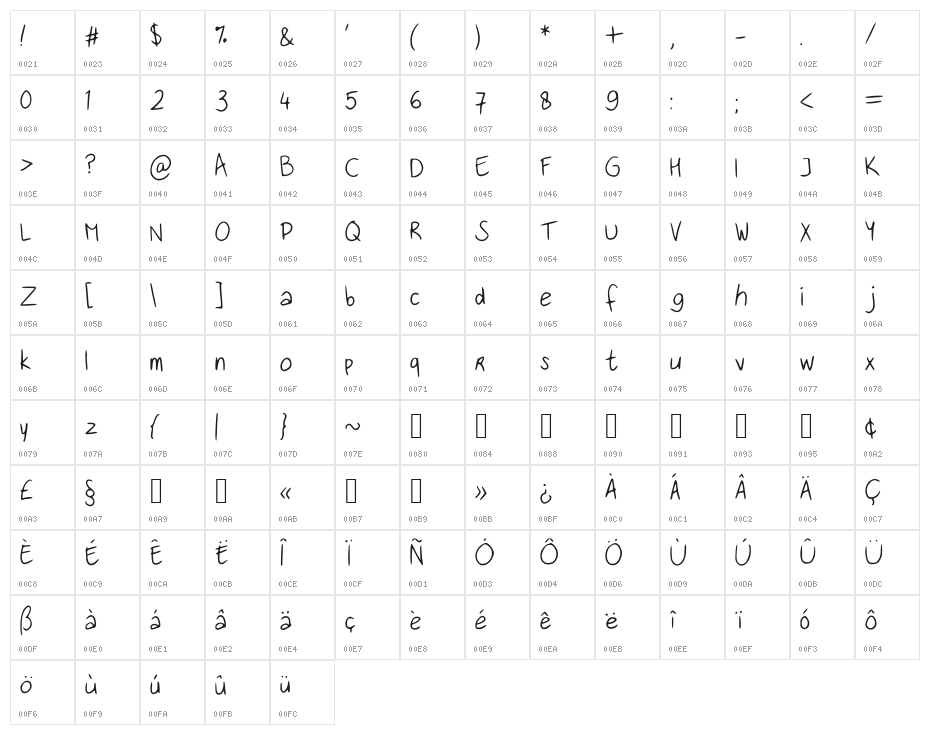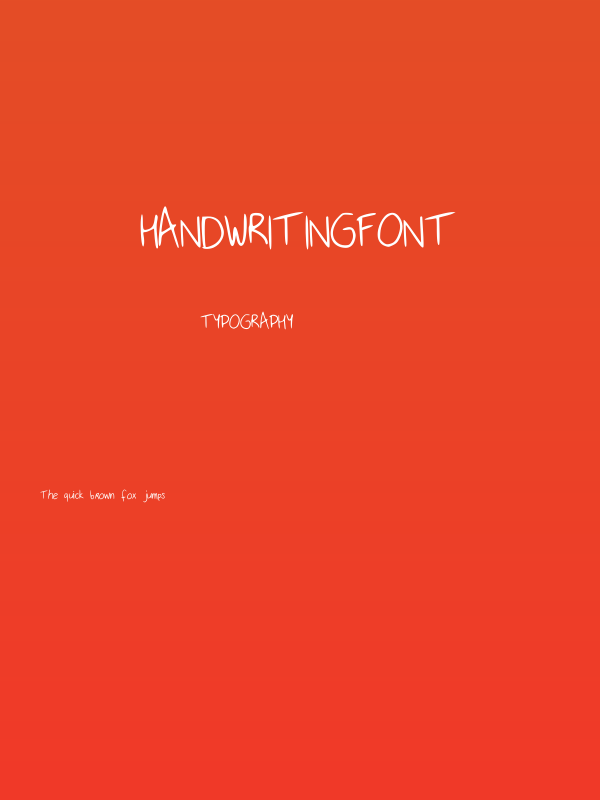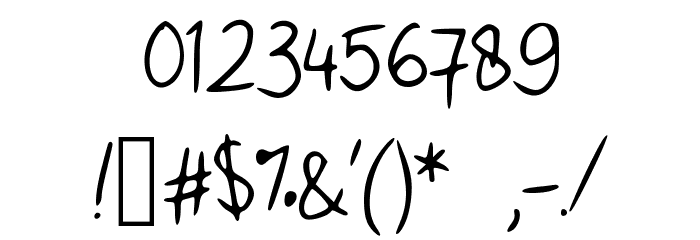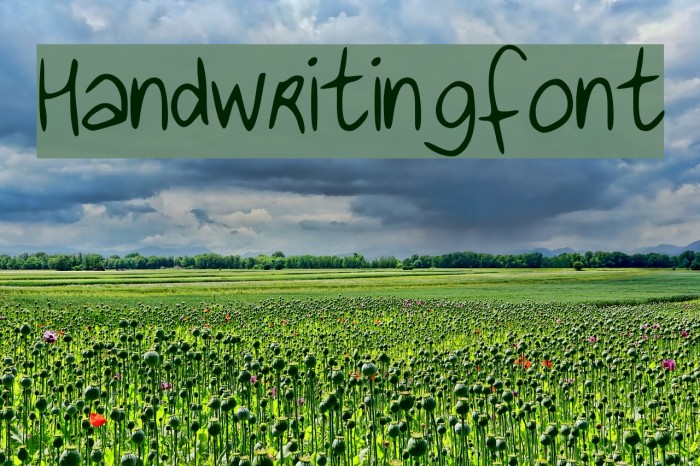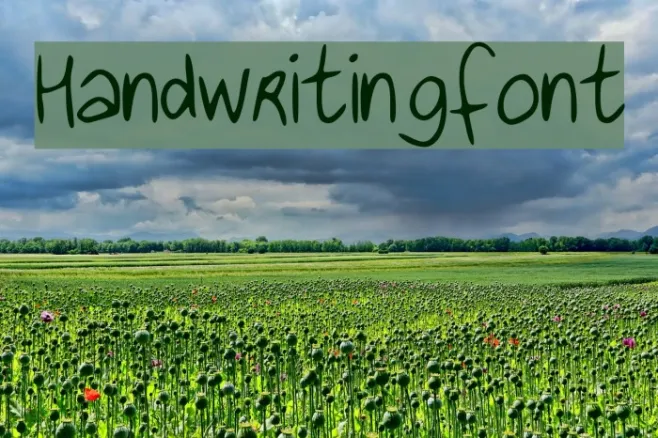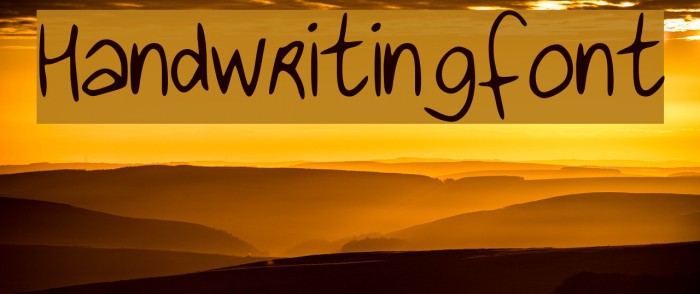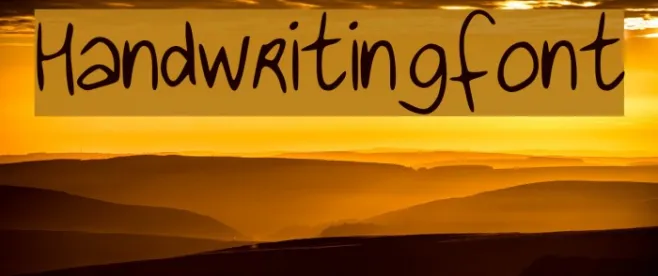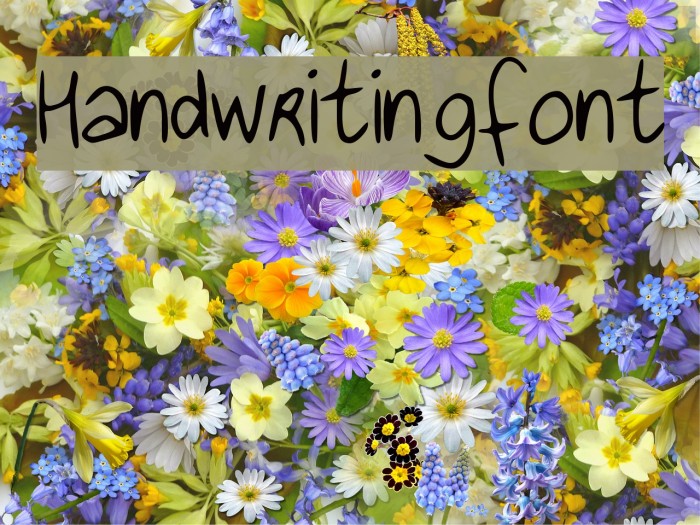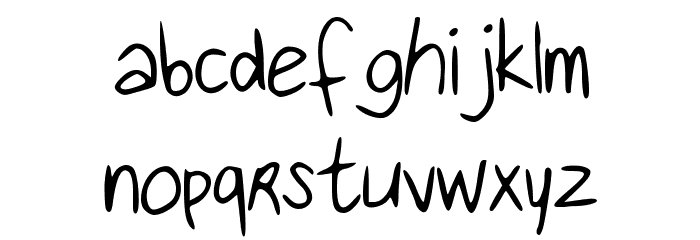
Handwritingfont Font
Handwritingfont Description
This font exudes a casual and playful handwritten style, characterized by its irregular and organic letterforms. The strokes are uneven, giving it a natural and personal touch, reminiscent of a quick note or a personal letter. The uppercase and lowercase letters maintain a consistent flow, while the numerals and special characters are crafted to match the font's overall informal aesthetic. The font's charm lies in its imperfections, making it ideal for projects that require a human touch or a friendly, approachable vibe.
| Use Case | Headlines, Informal text, Personal projects |
| Proposed Projects | Greeting cards, personal notes, informal invitations, children's books, and playful branding. |